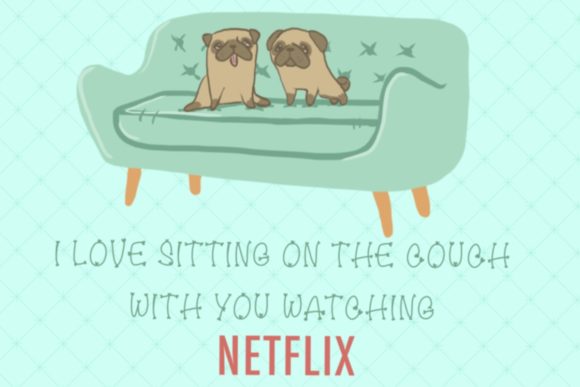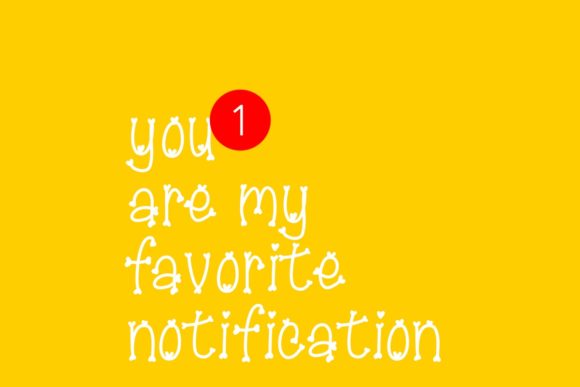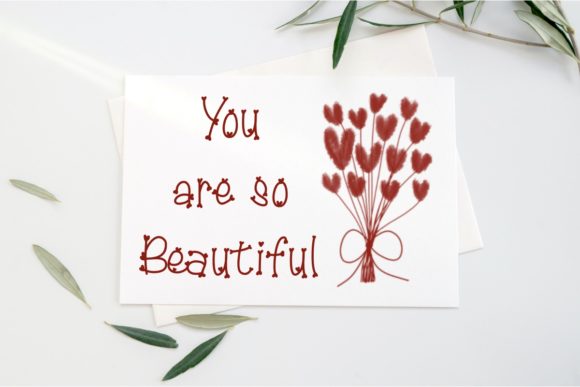
Introducing Happy Love Font: The Ultimate Decorative Font for Creative Minds
Are you a designer, crafter, or creative enthusiast looking for a unique and versatile font to elevate your projects? Look no further than Happy Love Font, an incredibly distinctive decorative font that’s sure to become your new favorite. With its masterful design and PUA encoding, Happy Love Font has the potential to bring each of your creative ideas to the highest level.
What Makes Happy Love Font So Special?
Happy Love Font is not just another ordinary font. Its unique design and features make it stand out from the crowd, making it a must-have for any creative project. Here are some of the key features that make Happy Love Font so special:
- Unique Decorative Style: Happy Love Font boasts a beautiful, decorative style that’s perfect for a wide range of creative projects, from handmade cards and invitations to branding and advertising materials.
- PUA Encoding: This font is PUA (Private Use Area) encoded, which means you can access all of the glyphs and swashes with ease. This feature allows you to unlock the full potential of the font and take your designs to the next level.
- Highly Versatile: Happy Love Font is incredibly versatile, making it suitable for a wide range of projects, from romantic and whimsical to elegant and sophisticated.
- Handmade Cards and Invitations: Add a personal touch to your handmade cards and invitations with Happy Love Font. Its unique decorative style is perfect for creating beautiful, one-of-a-kind designs.
- Branding and Advertising: Use Happy Love Font to create eye-catching branding and advertising materials, such as logos, brochures, and social media graphics.
- Digital Art and Illustration: Happy Love Font is a great addition to any digital art or illustration project. Use it to add text and captions to your artwork, or as a design element in its own right.
- Save Time and Effort: The font’s PUA encoding and extensive glyph library make it easy to find the perfect characters and swashes, saving you time and effort in the design process.
- Combine with Other Fonts: Happy Love Font pairs well with other fonts, so don’t be afraid to combine it with other styles to create a unique look.
- Use the Swashes and Glyphs: Take advantage of the font’s extensive glyph library and swashes to add extra flair to your designs.
In conclusion, Happy Love Font is an incredibly unique and versatile decorative font that’s perfect for designers, crafters, and creative enthusiasts. With its PUA encoding, extensive glyph library, and beautiful decorative style, it’s the perfect addition to any creative project. Whether you’re looking to create handmade cards and invitations, branding and advertising materials, or digital art and illustration, Happy Love Font has the potential to bring your ideas to the highest level.